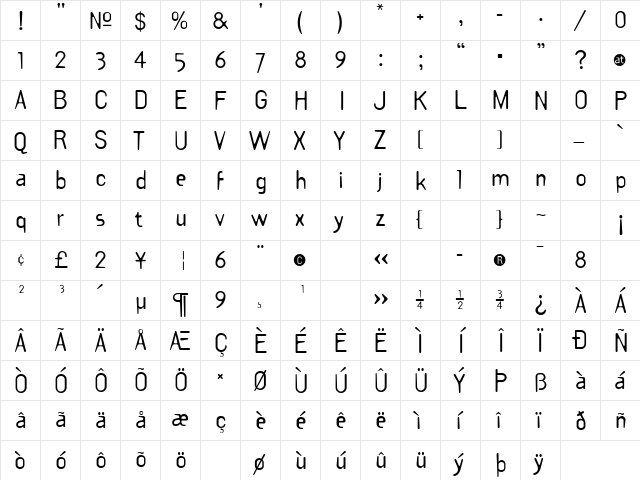
TemplateGothic Regular
Design Context for TemplateGothic Typeface
TemplateGothic takes a clean, functional approach — its unadorned letterforms prioritise legibility and work reliably across screen and print environments.
Font Pairing: Works well alongside a characterful serif or display font that can carry the expressive load while TemplateGothic handles the functional copy.
Pro Tip: Pair TemplateGothic with a display or serif font for headlines — its neutral character makes it an excellent supporting player in complex typographic systems.